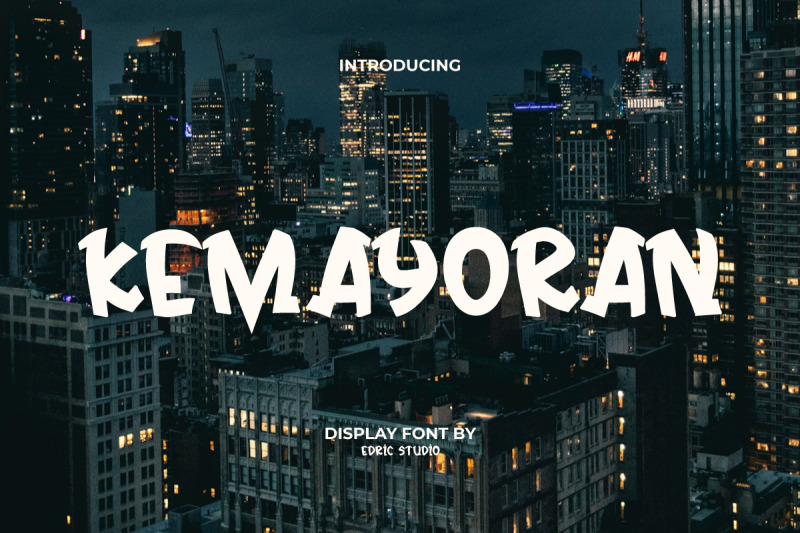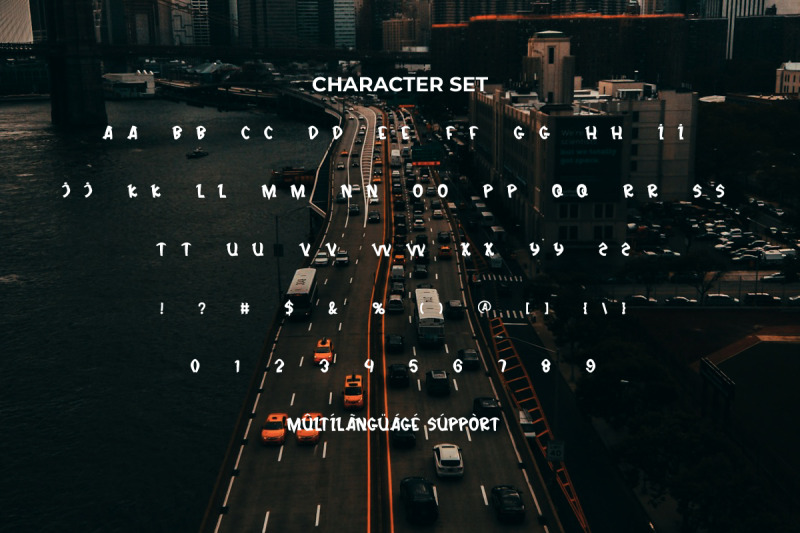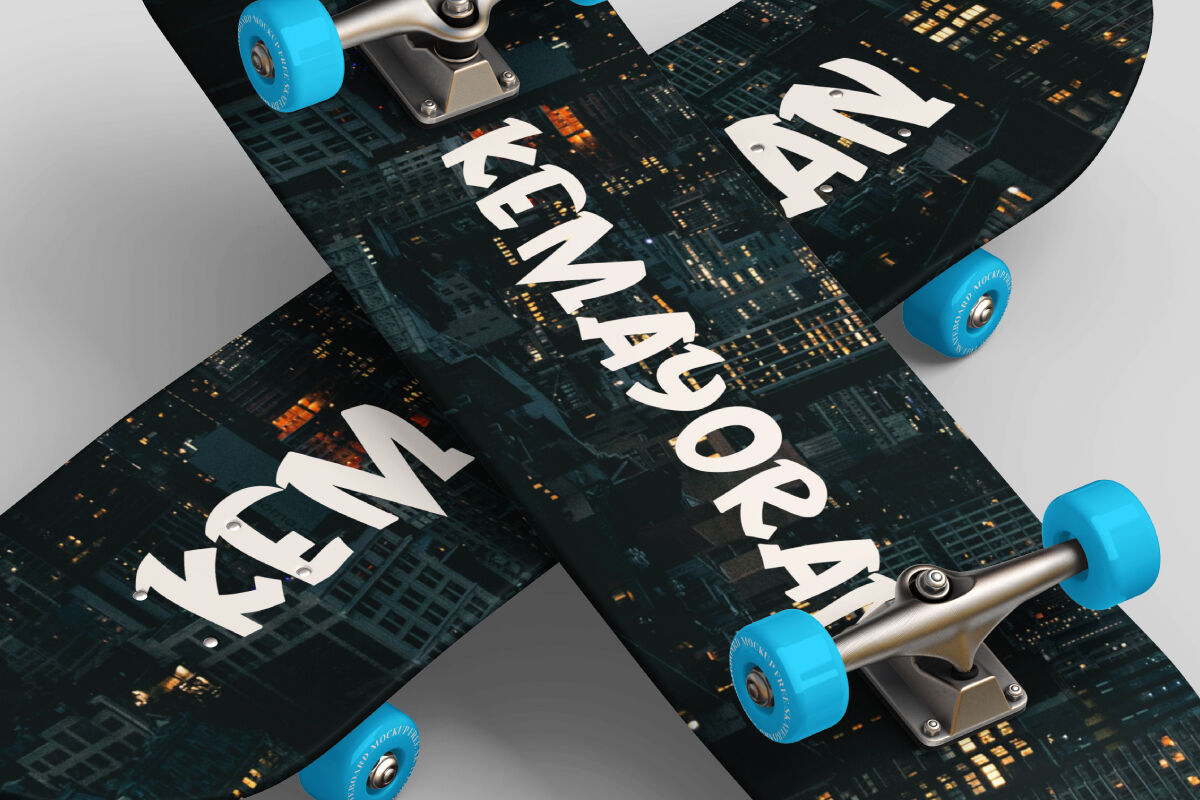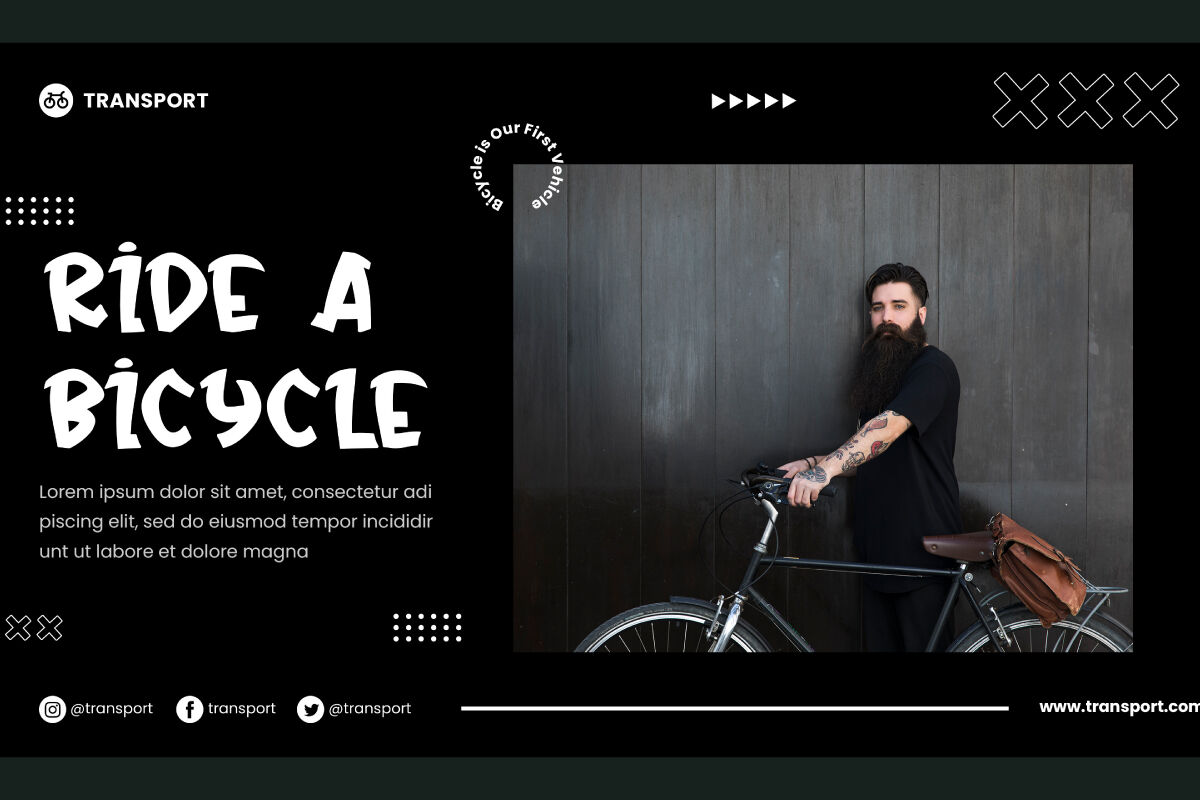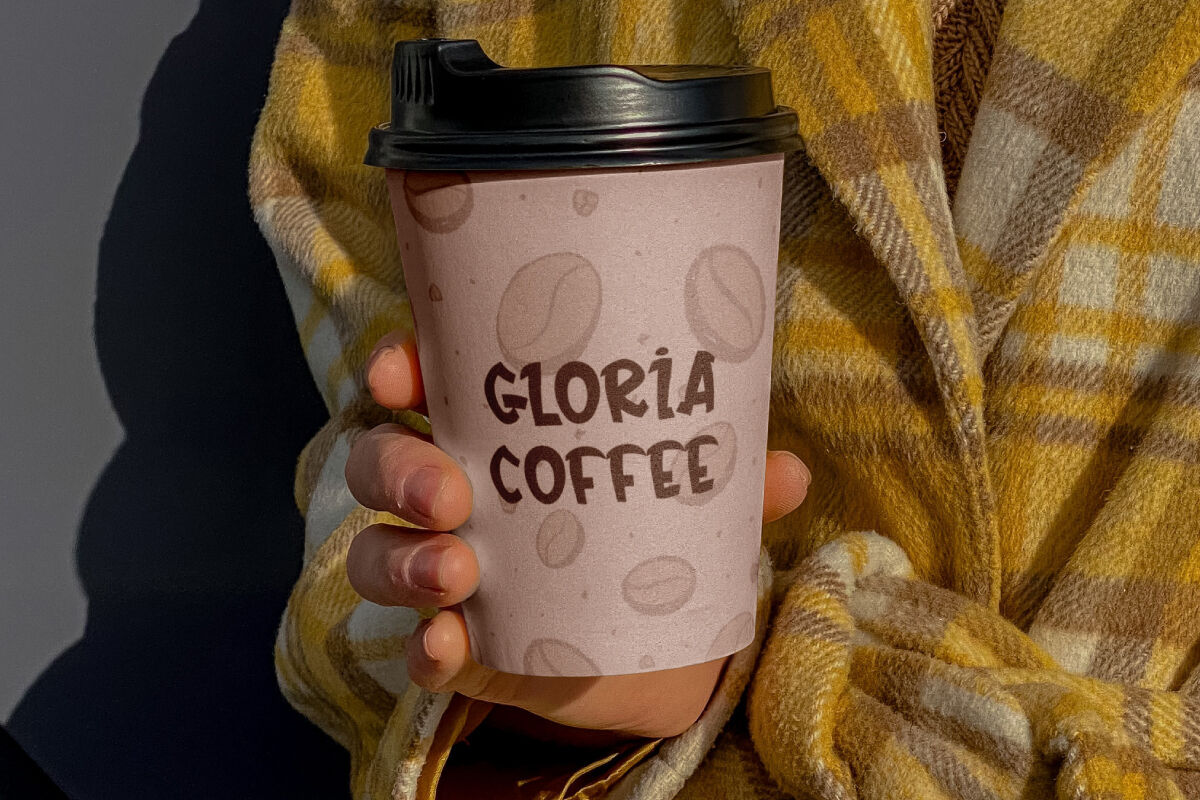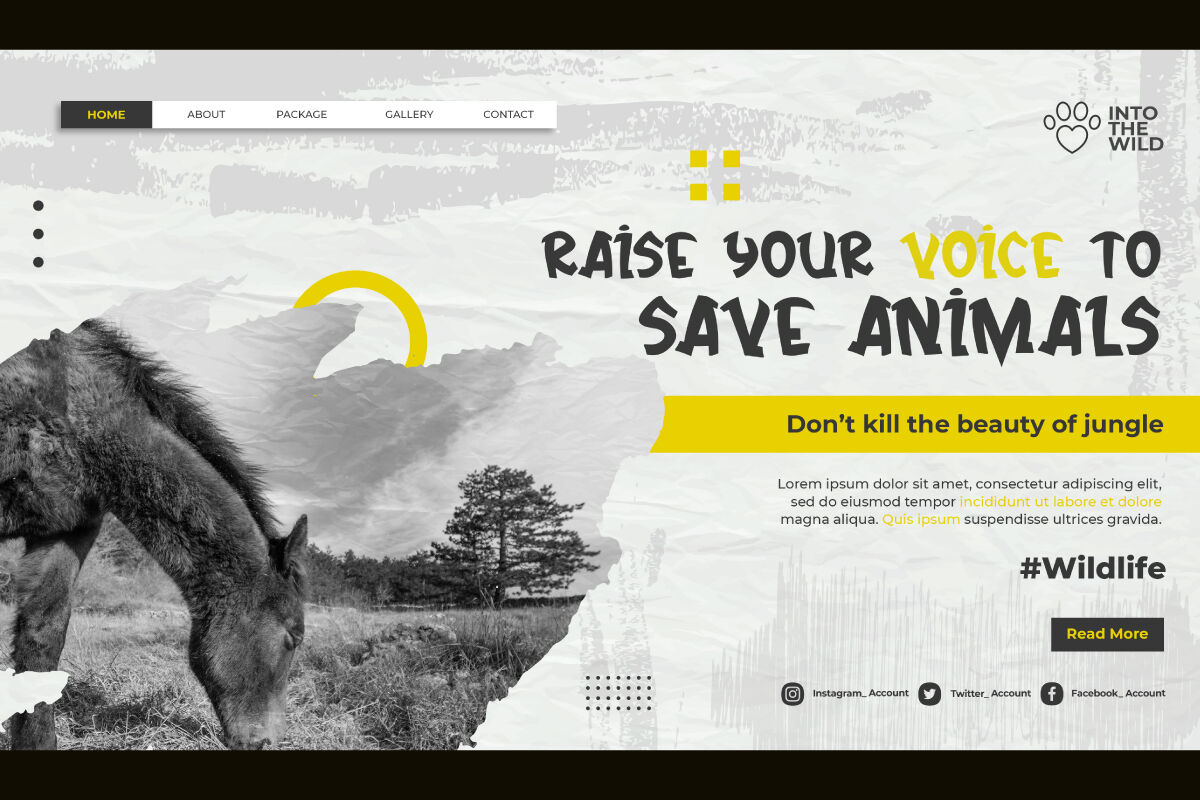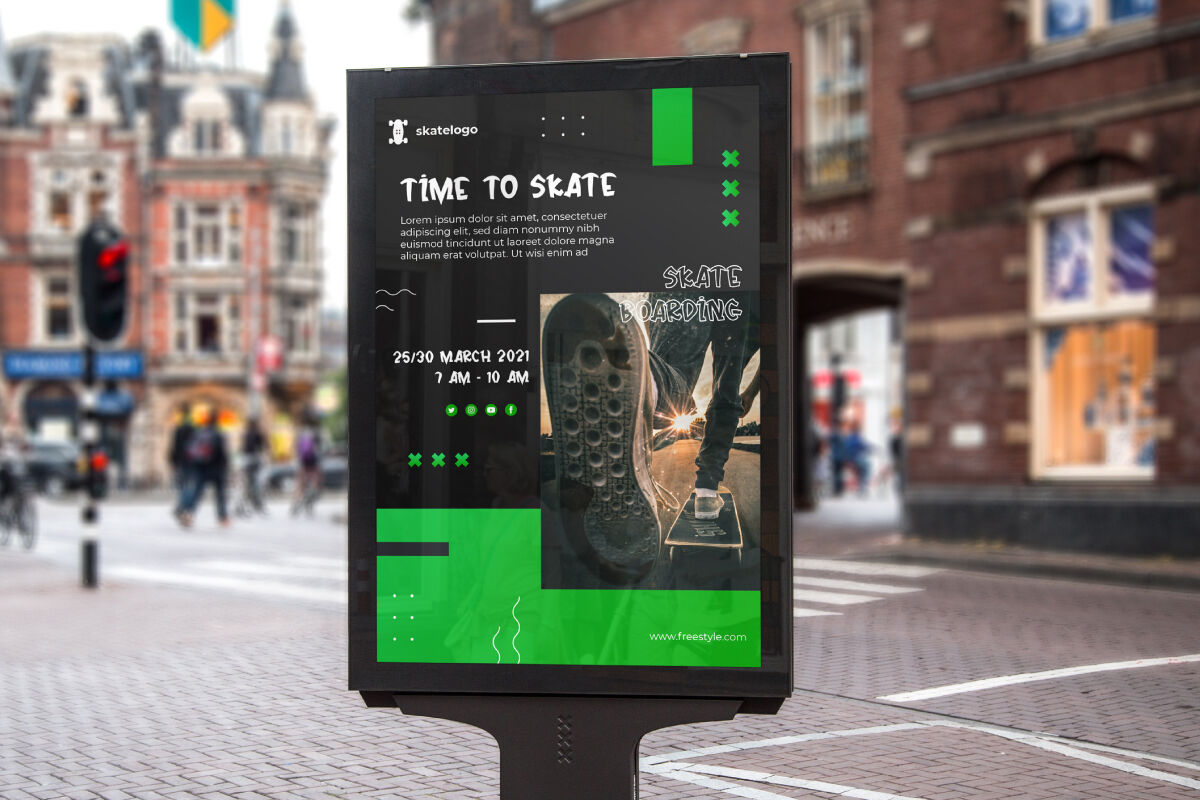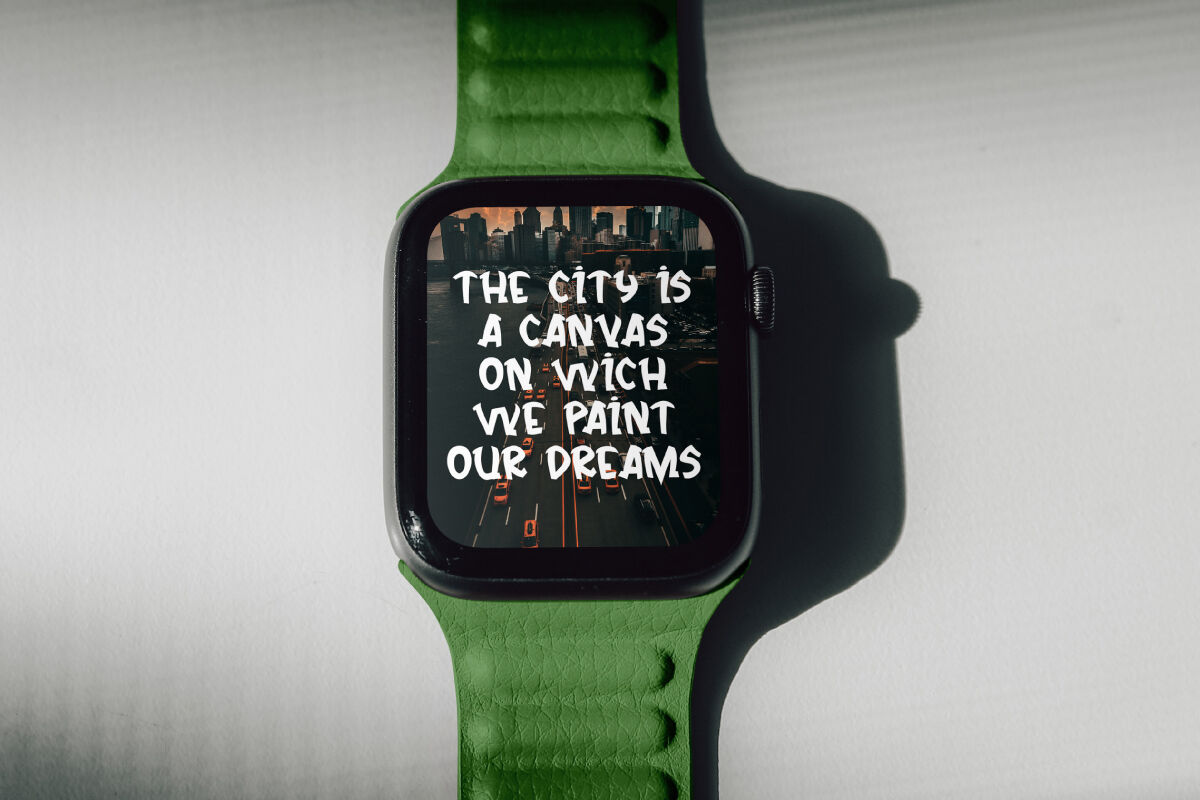
Kemayoran Font is a vintage retro display font with unique letter shapes. Perfect for designs that need a retro and hipster feel with a contemporary twist. This display typeface is a striking one that attracts attention. Its bold, high-contrast design will bring a delightfully nostalgic feel to your projects. Perfect for blogs, headers, labels, logos, product packaging, sticker, titles, etc.
Kemayoran Font includes a complete set of ALL CAPS for Uppercase and Lowercase Letters, Numbers, Punctuation and Symbols. This ensures the originality and excellence of a design so that it is good to use for automotive, cafeteria, movie, sports, sportswear brand, and much more.